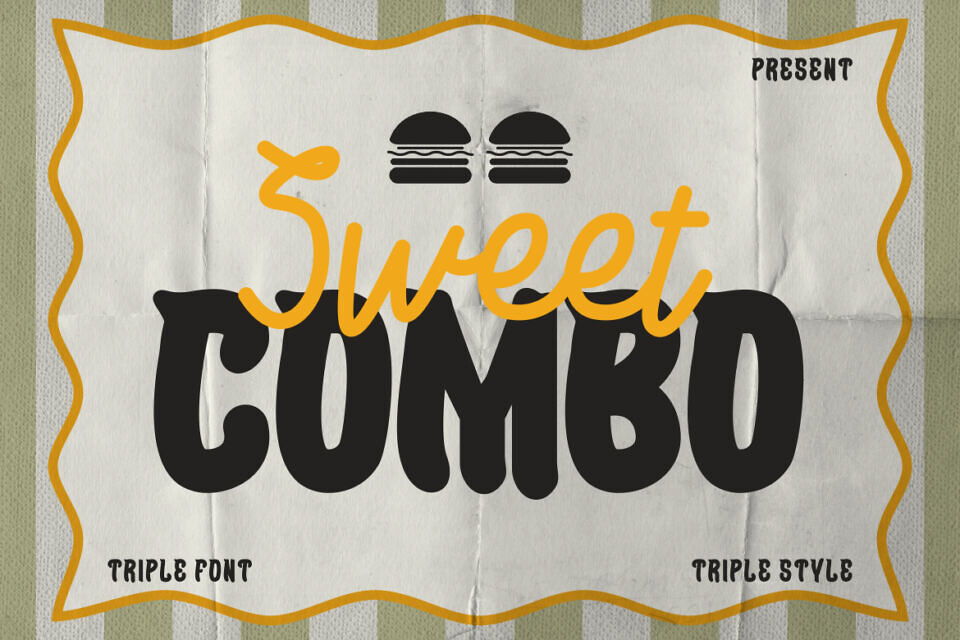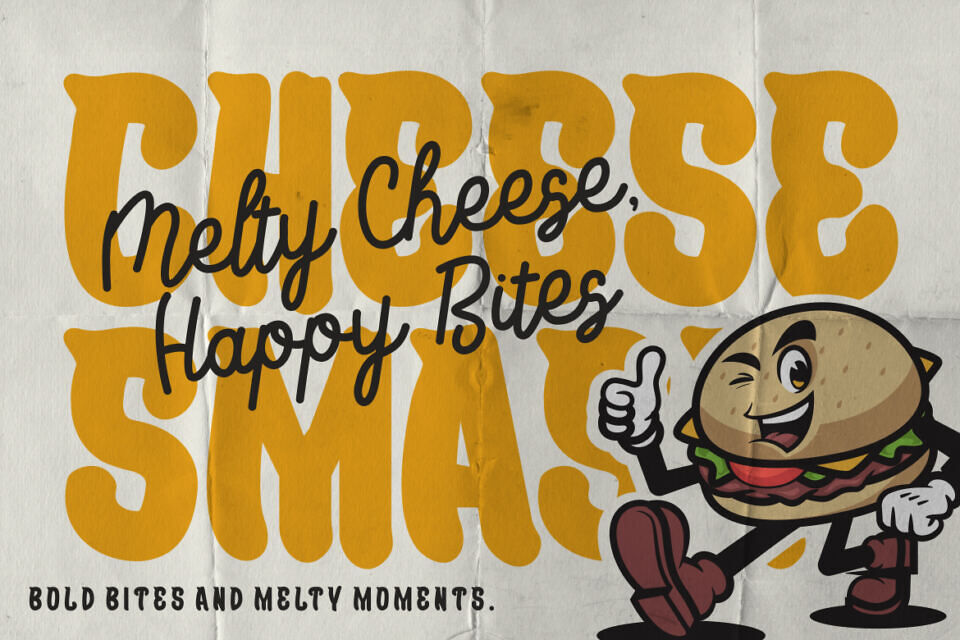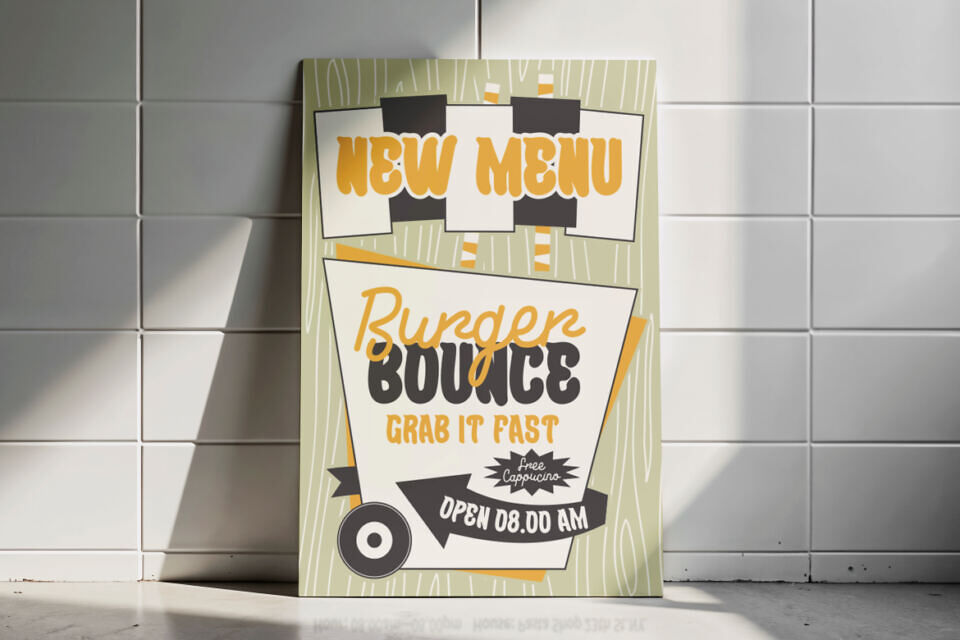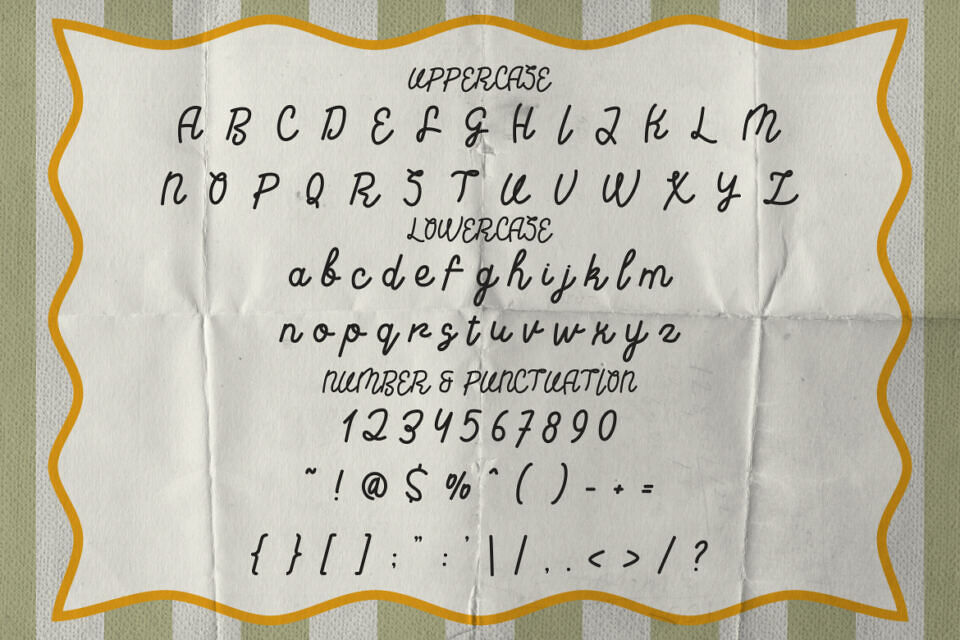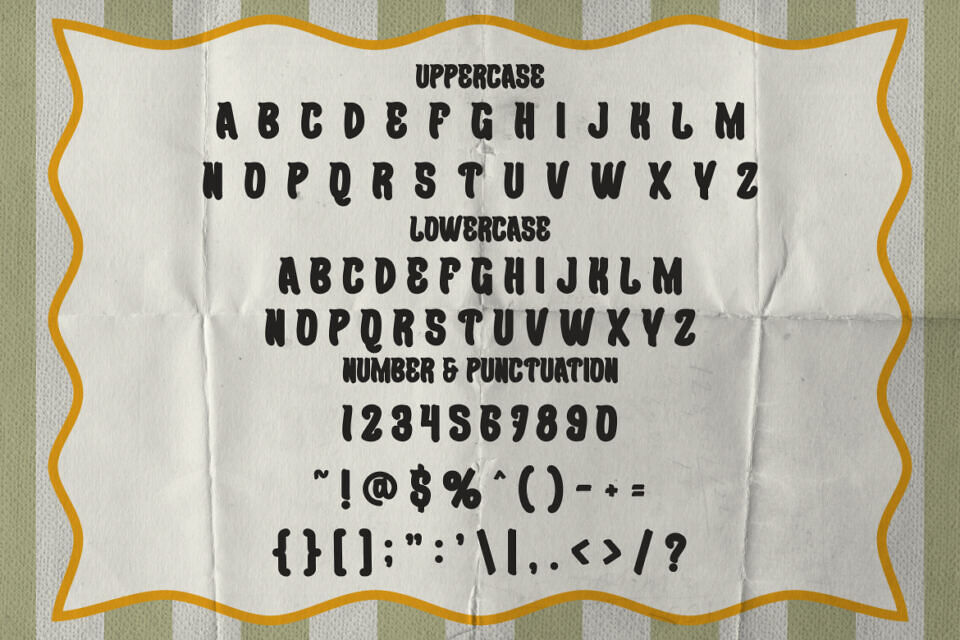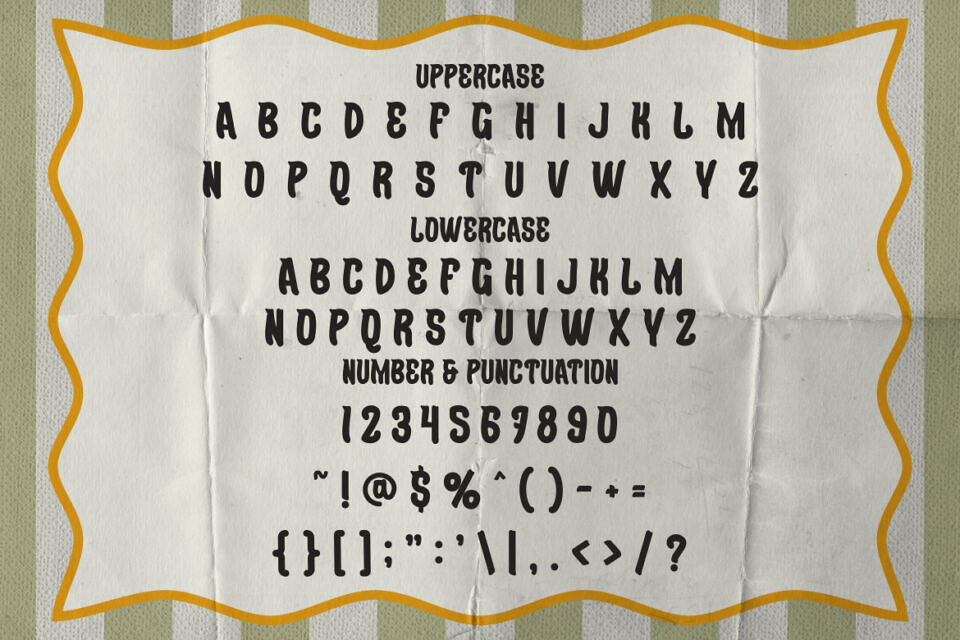
Sweet Combo Duo Font is a versatile typeface that blends bold display letterforms with a smooth script companion. The display characters appear thick, rounded, and sturdy, creating a strong visual anchor for headlines. Each letter feels wide and balanced, with consistent stroke weight that enhances readability.
The shapes look soft yet confident, giving the font a warm and approachable tone. The script style adds contrast through flowing strokes and natural curves. Its lines feel fluid, relaxed, and slightly playful, which brings personality to supporting text. Together, both styles create a harmonious pairing that feels intentional and well-structured.